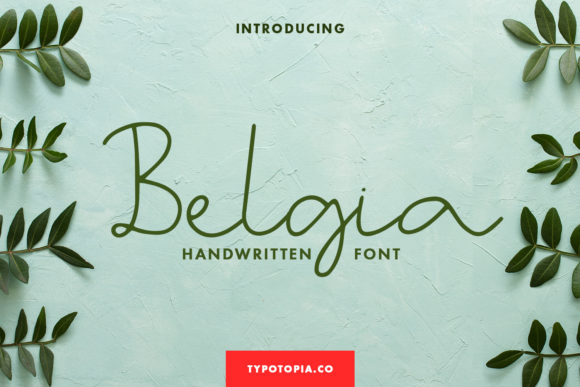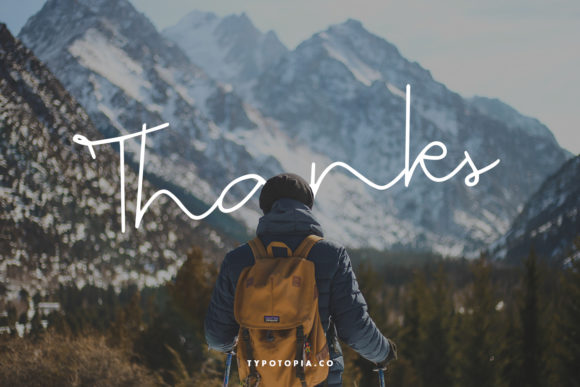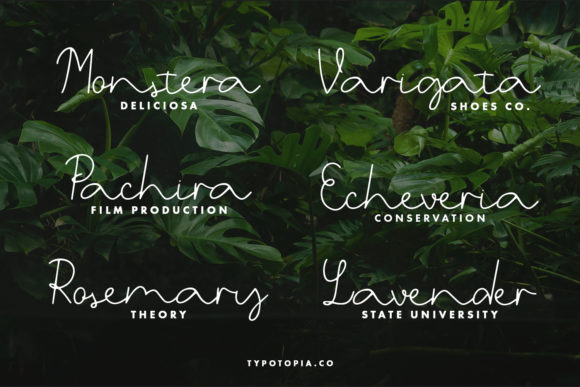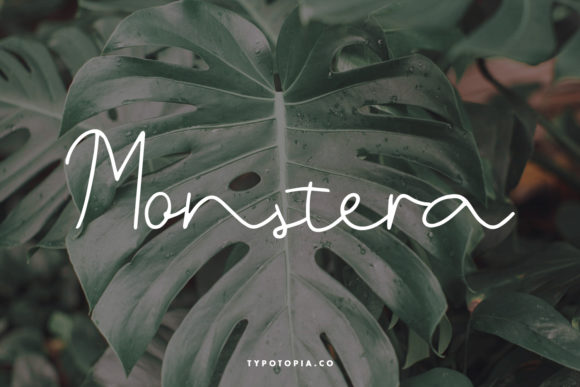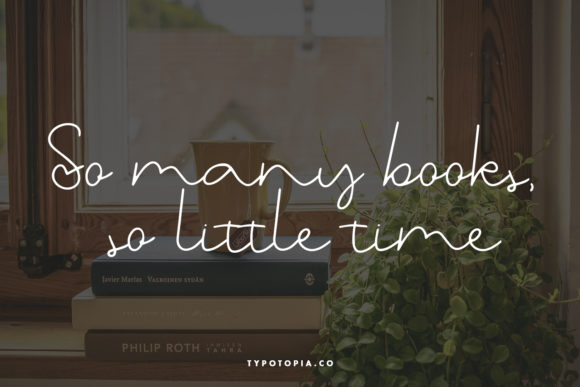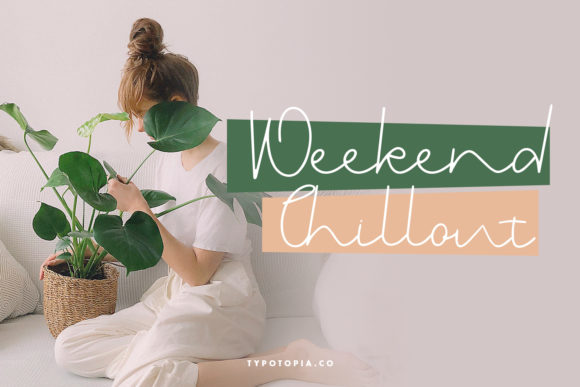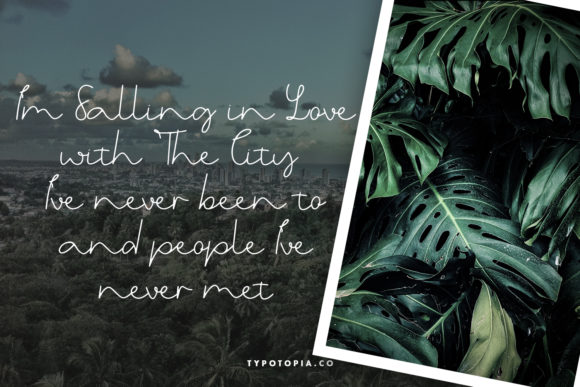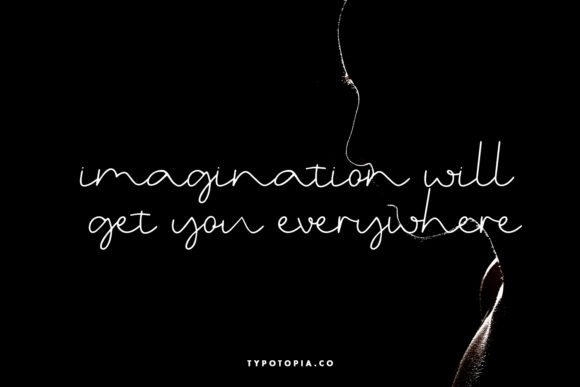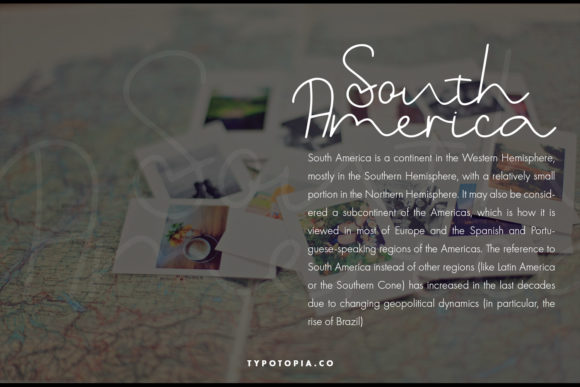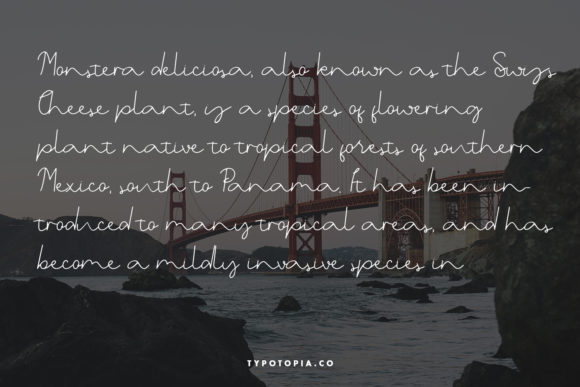
Belgia Font
About Belgia Font
“Belgia” is a flowing handwritten font that embodies elegance and timeless beauty. Its graceful touch makes it a perfect choice for a wide range of creative projects, inviting you to infuse your favorite endeavors with charm and sophistication. Whether you’re working on branding, quotes, invitations, or any project that requires an elegant touch, “Belgia” invites you to embrace its unique style and use it to craft designs that truly captivate.
The allure of “Belgia” lies in its flowing strokes and elegant curves, which effortlessly convey a sense of effortless beauty. Its distinct style seamlessly merges sophistication with a contemporary twist, making it a versatile choice for various design contexts. Whether you’re designing exquisite wedding invitations, conveying heartfelt messages, or enhancing your branding, this font adds a layer of sophistication that resonates deeply.
The timeless quality of “Belgia” ensures that it can adapt to different design styles and themes with ease. Its ability to evoke both elegance and modernity makes it a valuable asset for a wide spectrum of creative projects seeking to leave a lasting impact.
Witness how “Belgia” elevates your designs with its flowing and elegant touch. Whether you’re crafting intricate logos, designing captivating social media graphics, or producing eye-catching visuals, this font will infuse your work with a sense of grace and allure that captures the viewer’s attention.
Embrace the elegance of “Belgia” and integrate it into your design toolkit. Allow its flowing and timeless style to inspire your creations, transforming them into spectacular works that radiate sophistication and beauty. Whether you’re a seasoned designer or an aspiring enthusiast, “Belgia” empowers you to craft visuals that exude elegance and make a lasting impression. Let “Belgia” be the key to unlocking the beauty of flowing handwritten typography in your designs, and watch as it takes your projects to new heights of excellence and timeless allure!